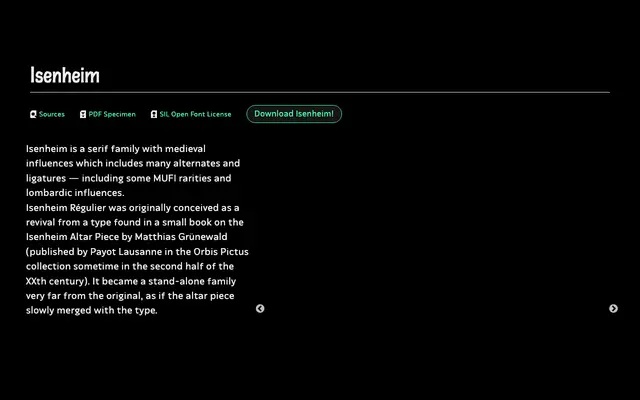
Isenheim
Tunera · Benoît Ferran
A serif revival by Benoît Ferran drawing on medieval type found in a Payot Lausanne publication on the Isenheim Altarpiece, extended with lombardic influences and MUFI rarities.
Originally conceived from a typeface found in a small illustrated book on Matthias Grünewald's Isenheim Altarpiece, the design has since evolved well beyond that source into a standalone family. It includes a substantial set of alternates, ligatures and rare MUFI characters alongside lombardic influences, giving it a richly historical character. Released under the SIL Open Font License and available as a free download from Tunera.
Described as a serif family with medieval influences, originally conceived as a revival from a type found in a book on the Isenheim Altarpiece, with lombardic influences and MUFI rarities pointing firmly to a medieval or blackletter-adjacent serif classification.